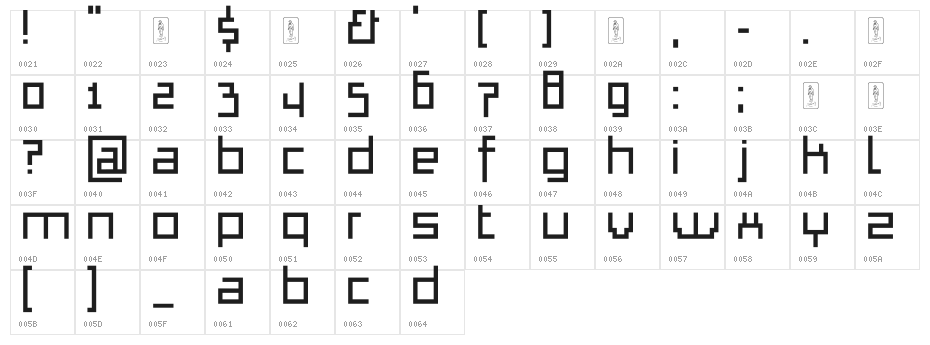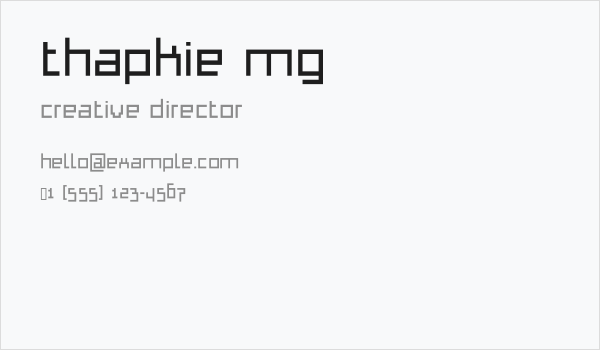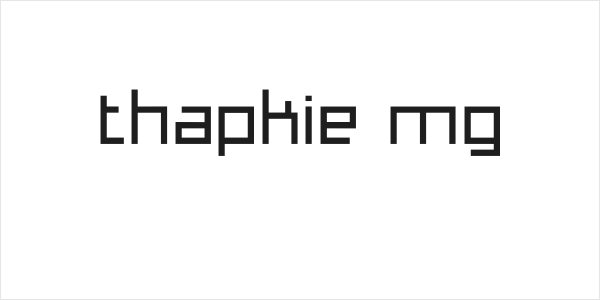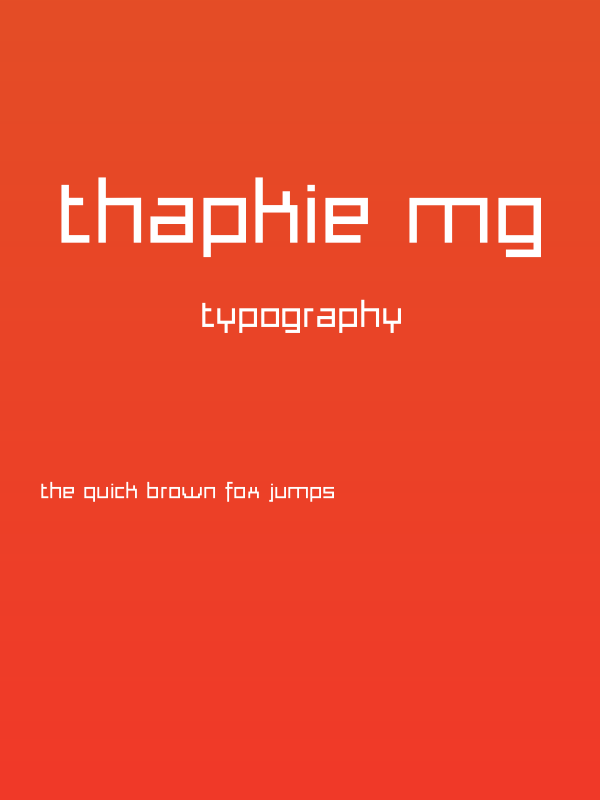
Thapkie MG Font
Thapkie MG Description
This font features a geometric and pixelated design, characterized by its blocky and angular shapes. Each character is constructed with a consistent stroke width, giving it a uniform and structured appearance. The uppercase and lowercase letters maintain a similar height, enhancing the font's cohesive look. The numerals and special characters follow the same design principles, ensuring a harmonious visual flow. The font's distinct style makes it suitable for digital and retro-themed projects, where a modern yet nostalgic feel is desired.
| Proposed Projects | Ideal for digital art, retro video games, tech branding, and modern posters. |